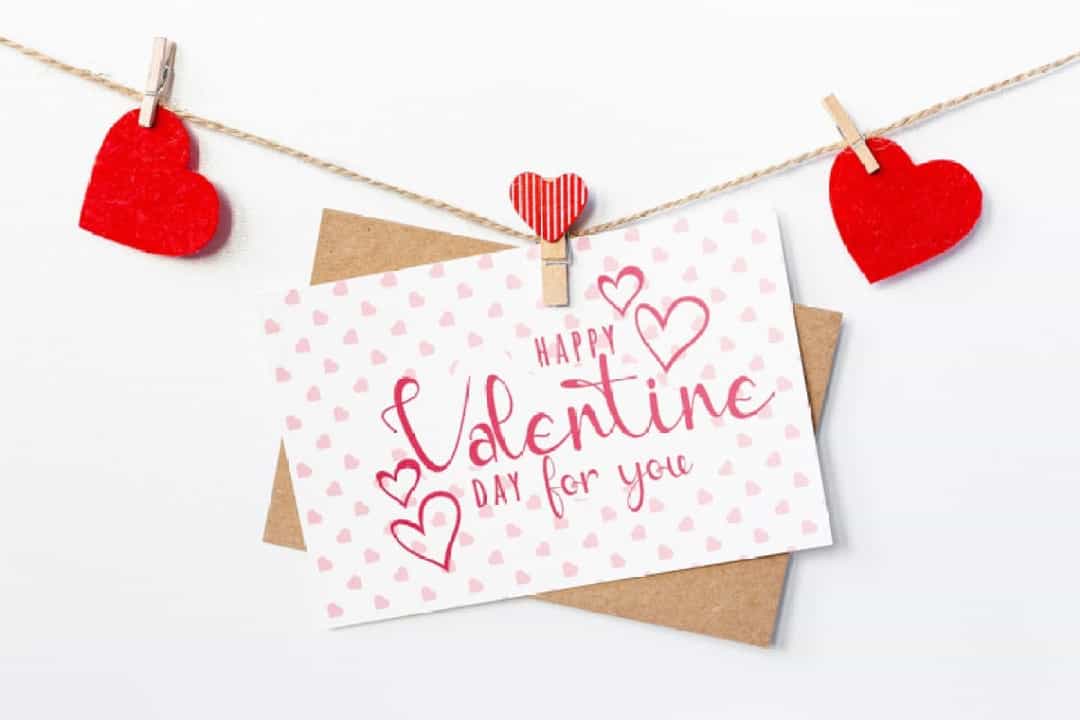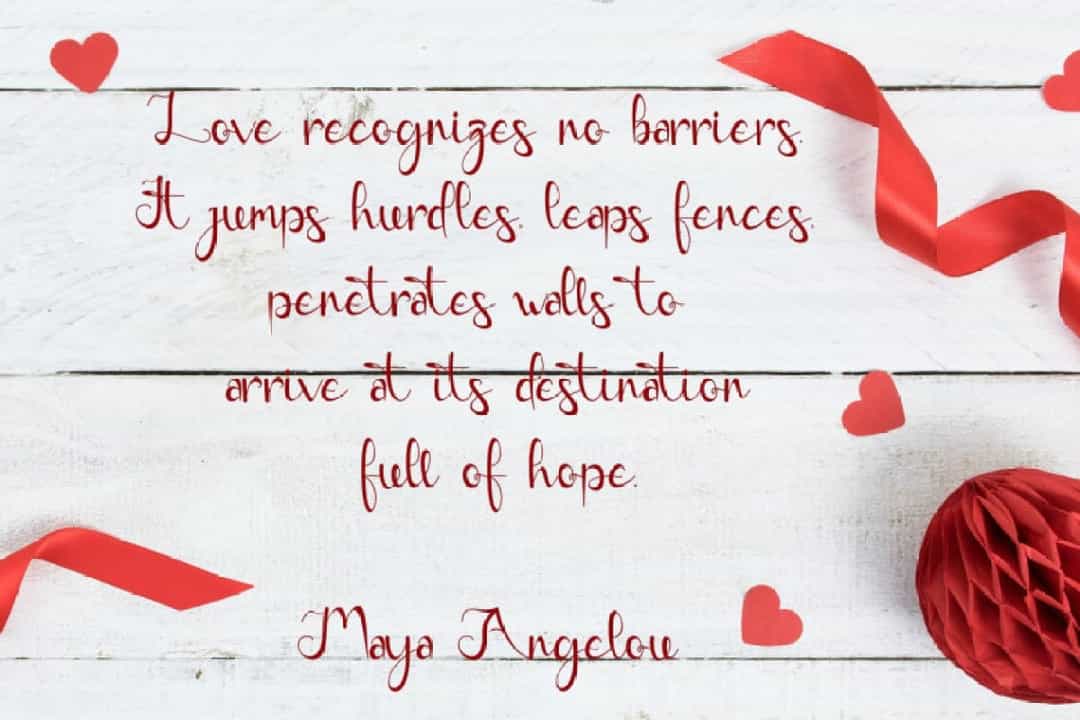
Loplove is a beautiful floral calligraphy typeface font that is well suited for crafting and other purposes including logo designs, branding of items to do with the home, packaging for items such as mugs and posters with quotes about shopping bags (quote bags for shopping), T-shirts, book covers, cards for greetings and invitations, labels, photographs as watermarks, special occasions as well as many other great projects that require calligraphy.